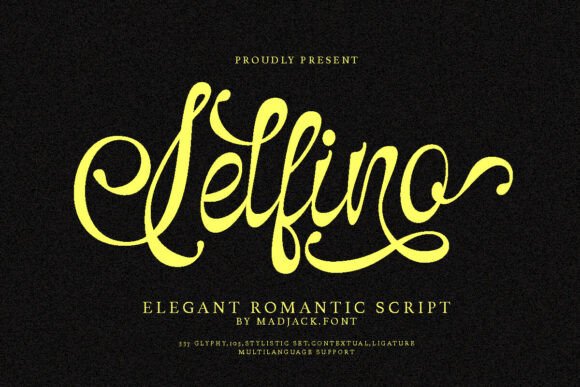
Selfino Script: A Premium Font for Timeless Elegance
In the world of design, the right typeface doesn't just convey words; it sets a mood, tells a story, and defines a brand's character. For projects that demand a touch of sophistication, romance, and luxury, the search for the perfect script font can be challenging. You need something that feels both personal and polished, ornate yet legible. This is precisely the space where Selfino Script excels. It’s not merely a collection of letters but a carefully crafted design asset that brings a distinct sense of charm and refinement to any creative endeavor.
At its core, Selfino Script is a luxurious, romantic script font characterized by its flowing, connected letterforms and graceful curves. It embodies a classic calligraphic style but with a clean, modern sensibility that prevents it from looking dated. The font's personality is one of quiet confidence and elegance. It feels handcrafted and personal, making it ideal for designs that need to connect on an emotional level. The overall appeal lies in its versatility within its niche—it’s ornate enough to feel special but designed with a focus on readability, a crucial balance for any premium font.
Where Selfino Script Truly Shines
Understanding where a font like Selfino Script works best is key to leveraging its strengths. Its flowing nature makes it a natural fit for projects centered around celebration, romance, and luxury. Think of wedding invitations, where its elegant swashes can set the tone for the entire event. It’s equally at home in feminine branding for boutiques, florists, or lifestyle blogs, where it adds a touch of personal flair. For high-end product packaging, especially in the cosmetics, artisanal food, or jewelry sectors, this script font communicates quality and care instantly.
Beyond these classic applications, Selfino Script proves its value in a range of other creative projects:
- Logo Design & Brand Identity: Used for a brand name or monogram, it creates a memorable and sophisticated mark. It pairs beautifully with a clean sans serif font for body text, establishing a clear visual hierarchy.
- Editorial & Publishing Design: It can add a touch of elegance to magazine headlines, book covers, or chapter openers, drawing the reader into a story.
- Digital & Social Media: In web design, it can be used for hero sections or special callouts. For social media graphics, it helps create standout quotes, promotional announcements, and Instagram stories that feel curated and professional.
- Print Collateral: Think thank-you cards, gift tags, stationery, and event programs. Selfino Script elevates these everyday items into keepsakes.
The Practical Guide to Using a Script Typeface
Choosing a creative font like Selfino Script is the first step; using it effectively is the next. A font's power lies in how it influences perception. The right display font can guide the viewer's eye, establish a mood, and build brand recognition. However, its effectiveness is directly tied to its context and execution.
Evaluating Project Fit and Readability
Before committing, ask if the font's personality aligns with your project's goals. Is the tone romantic, luxurious, or playful? Selfino Script leans toward romantic and luxurious. For any project, especially those involving longer text, readability is paramount. While a script font is rarely used for body copy, it must be legible at the sizes it will be displayed. Test it. Print a sample or view it on multiple screens. Check the clarity of letterforms like 'e', 'a', and 's', and ensure the connections between letters are smooth. The over 300 glyphs in Selfino Script, including stylistic alternates and ligatures, are a significant asset here. These extras allow you to customize words, avoid awkward character combinations, and add unique flourishes where needed.
Mastering Font Pairing and Hierarchy
A script font rarely works in isolation. Creating a successful font pairing is about contrast and harmony. Selfino Script, as a high-contrast display font, pairs best with simple, neutral companions. A classic serif font like Garamond or a modern sans serif font like Montserrat or Lato often works well. The script font should be reserved for headlines, logos, or accents, while the secondary typeface handles the supporting text. This creates a clear visual hierarchy that is both beautiful and functional. When building a brand identity, this pairing becomes a core component, ensuring consistency across all touchpoints—from your website to your business cards.
For any commercial font, understanding the license is non-negotiable. Selfino Script is a premium font, and its license will outline permitted uses—typically covering desktop, web, and app installations for a certain number of users or projects. Always review the End User License Agreement (EULA) before purchase. Furthermore, examine the full character map. Does it include the punctuation, numerals, and language support you need? The inclusion of stylistic sets and ligatures in Selfino Script is a mark of a quality typeface, offering you greater creative control and flexibility in your designs.
Ultimately, a typeface like Selfino Script is more than just a design asset; it’s a tool for storytelling. By understanding its visual characteristics, knowing where it performs best, and applying it with thoughtful consideration for readability and pairing, designers, entrepreneurs, and creators can harness its elegant charm to produce work that feels both personal and profoundly professional. It’s this balance that makes it a valuable addition to any creative’s typographic toolkit.